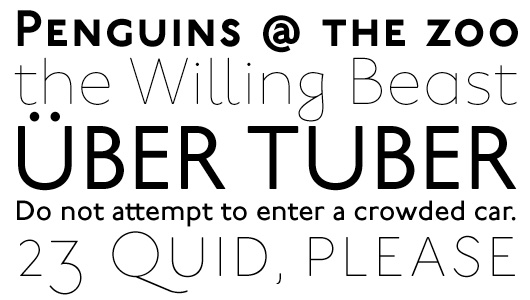
Underground Pro (P22)
Underground Pro expands on the historical design by Edward Johnston,
licensed exclusively to P22 from the London Transport Museum. The overall
design of Underground Pro is kept as intended by Johnston and remains
within his system of proportions. Additional OpenType features, such as
Small Caps and Petite Caps, are included in all 6 weights. A Titling option
that mimics London Transport signage is offered in the medium weight.
The addition of many unicode ranges for unprecedented language support
makes this the most expansive P22 font family ever. Each Pro font weight
collectively contains over 5000 glyphs, covering most Latin based
languages, with separate Greek (polytonic) and Cyrillic versions. The
outlines of the original Regular and Bold have been subtly redrawn and
expanded, they are now available as Medium and Heavy respectively.